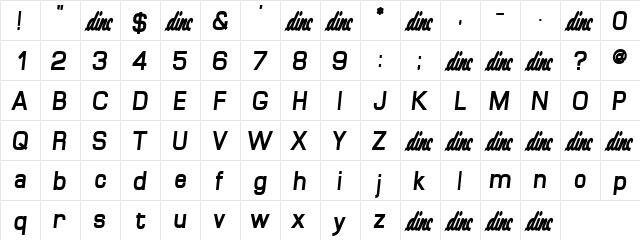
MerseyBeat Regular
Design Context for MerseyBeat Typeface
MerseyBeat takes a measured approach to typography — its balanced proportions and neutral character make it a reliable workhorse for both digital and print work.
Pro Tip: Use MerseyBeat in both headline and body roles to test its range before committing to a single application.